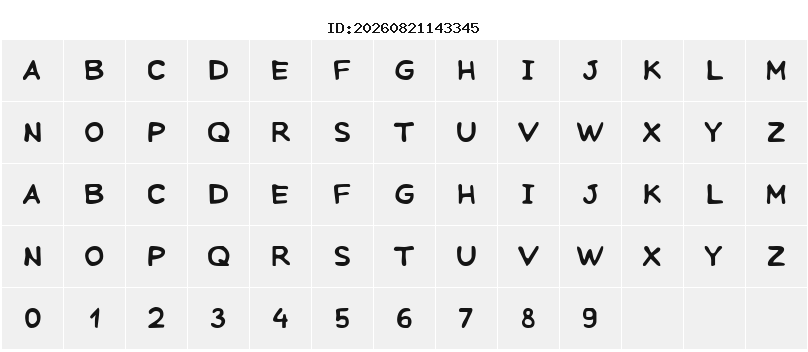
• Font Name: Seagull Wine
• Designer: Ivan «D.Van» Khoroshev
About Seagull Wine.ttf
Seagull Wine.ttf is a modern, elegant sans-serif font designed for ultimate readability and visual harmony. Perfect for branding, headlines, web design, and print materials.